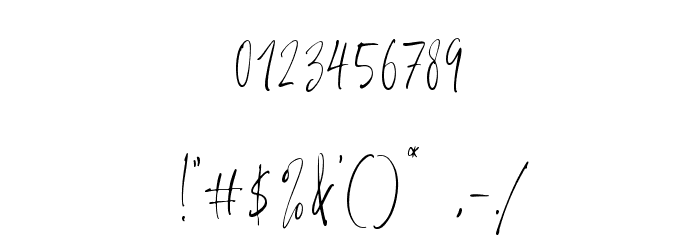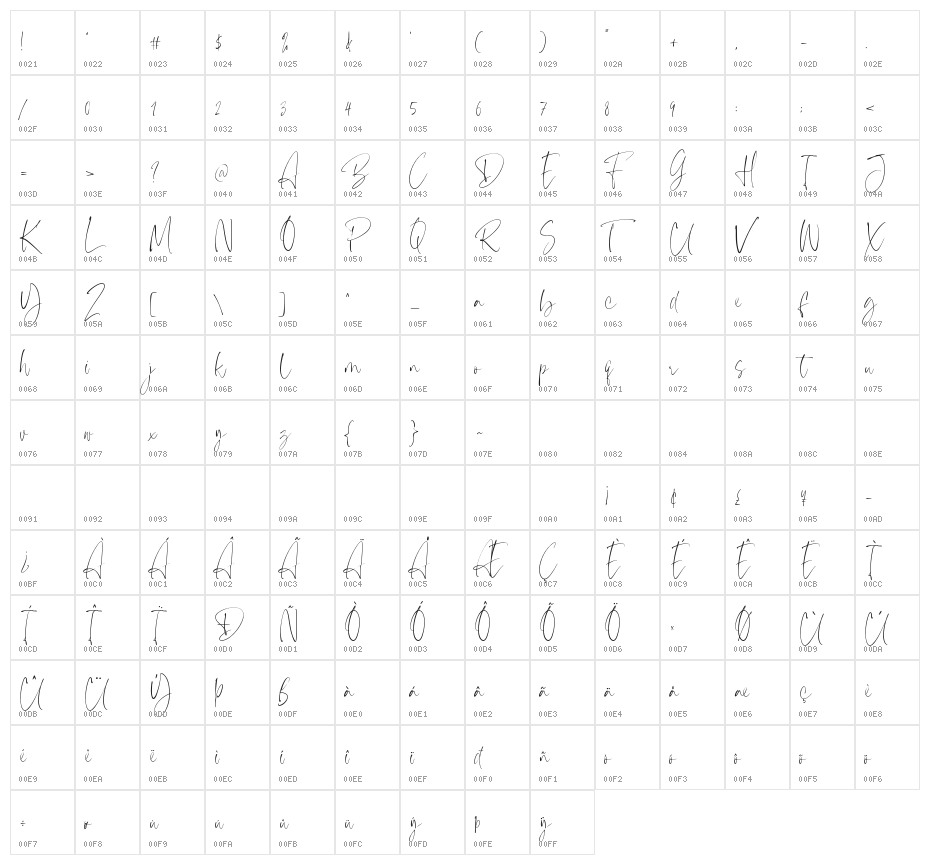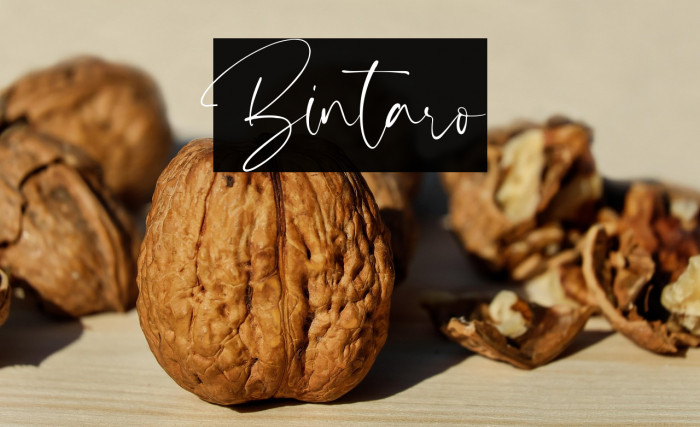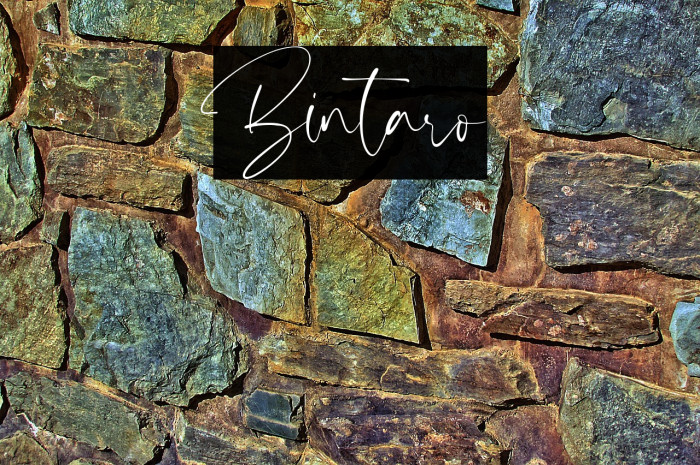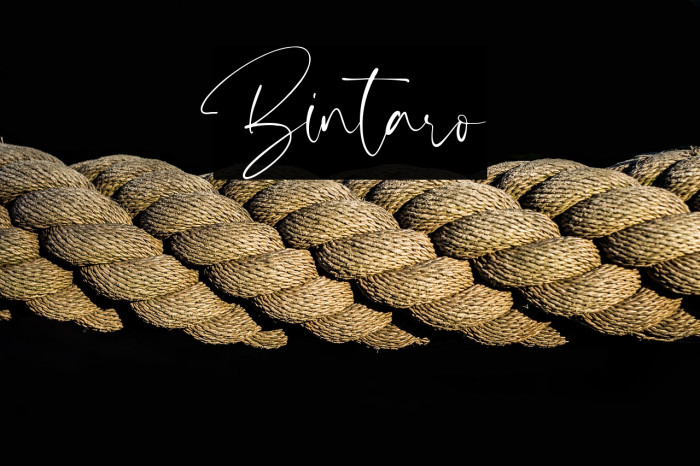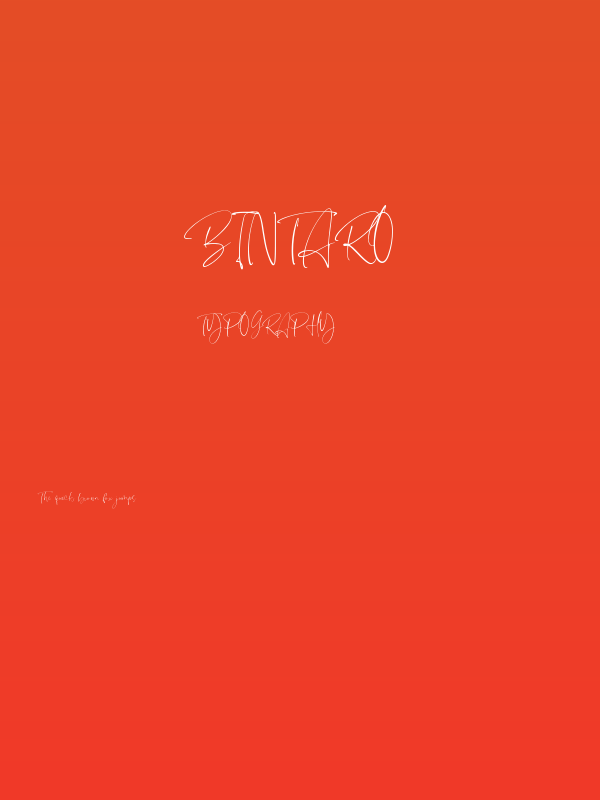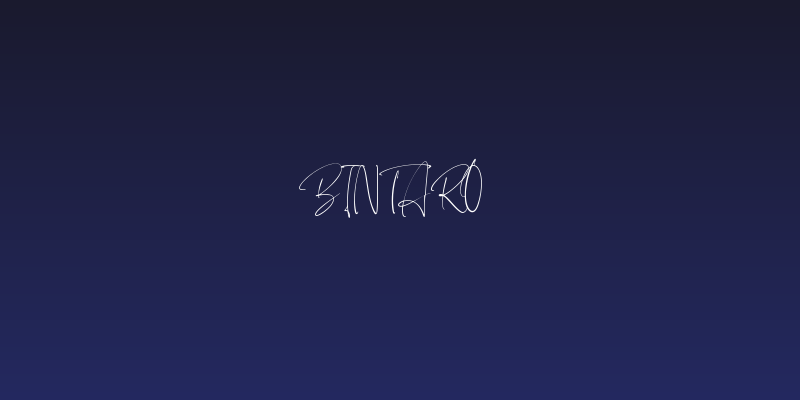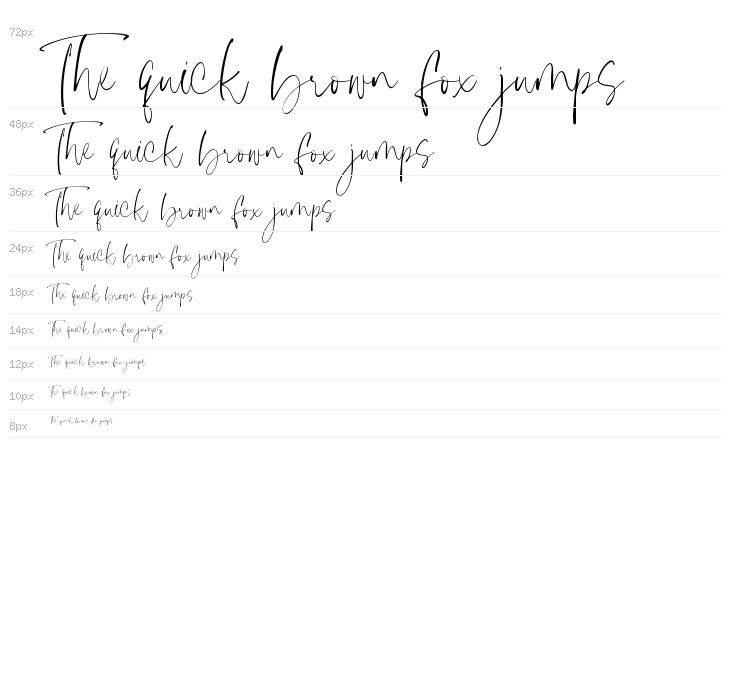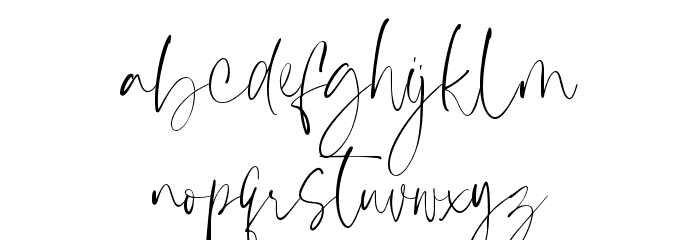
Bintaro Font
Bintaro Description
This font features a whimsical and flowing script style, characterized by its elegant and fluid strokes. The uppercase letters are tall and slender, with a playful, handwritten quality that adds a personal touch. The lowercase letters maintain a consistent style, with loops and curves that enhance its artistic flair. Numbers and special characters are crafted with the same attention to detail, ensuring a cohesive look throughout. The overall design is both sophisticated and approachable, making it suitable for a variety of creative applications.